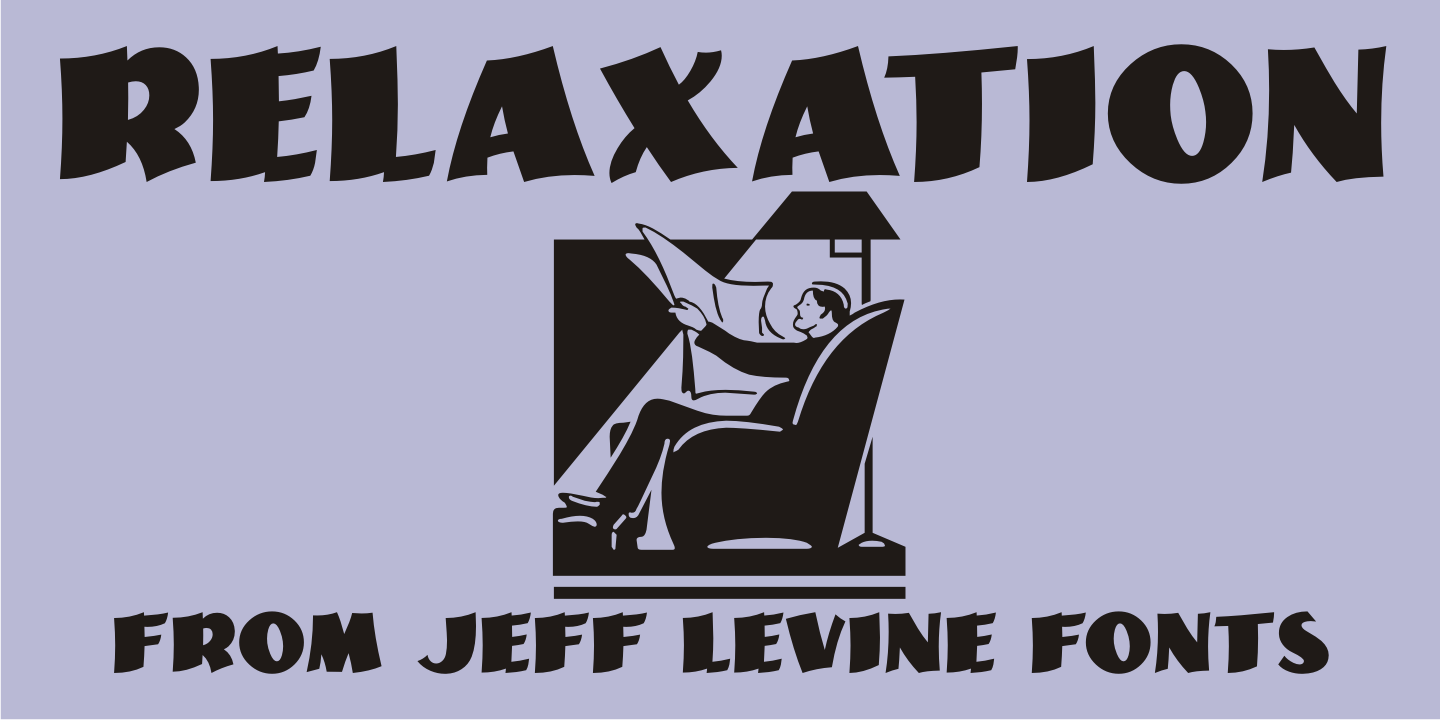
Relaxation JNL is a display sans font published by Jeff Levine Fonts.
Amongst the pages of a 1946 foreign publication entitled “100 Alphabets Publicitaires” (“100 Advertising Alphabets”) is the casual brush stroke sans that was the design basis for Relaxation JNL.